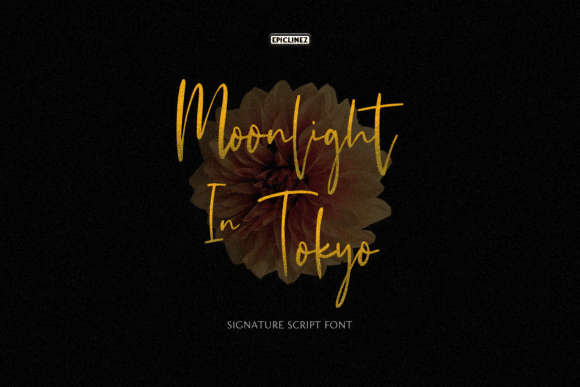
Moonlight In Tokyo is an authentic signature script font. This handwritten beauty is suitable for high-end, sophisticated branding or for simple, memorable Instagram quotes.